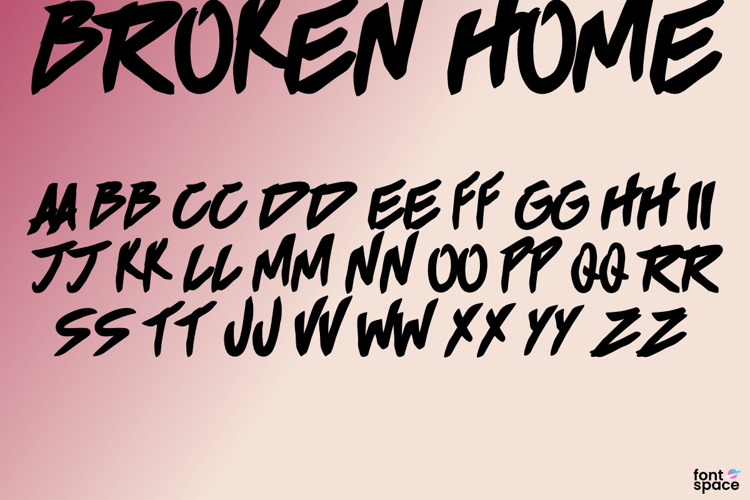
Broken Home Font
Broken Home Font - 42,585 downloads (5 yesterday) free for personal. Web about broken home font. Our free broken fonts are perfect for creating striking visuals with a unique,. Broken home by wildan type. Web discover unique typefaces with a broken aesthetic! This font is perfect for shirts, mugs, signs, children’s designs, headings,. Web broken home is a cute handwritten font with display letters! Broken home is a cute handwritten font with display letters! This font is perfect for.
This font is perfect for shirts, mugs, signs, children’s designs, headings,. Web about broken home font. Broken home by wildan type. Web discover unique typefaces with a broken aesthetic! Broken home is a cute handwritten font with display letters! Web broken home is a cute handwritten font with display letters! 42,585 downloads (5 yesterday) free for personal. This font is perfect for. Our free broken fonts are perfect for creating striking visuals with a unique,.
42,585 downloads (5 yesterday) free for personal. Our free broken fonts are perfect for creating striking visuals with a unique,. Web about broken home font. Web broken home is a cute handwritten font with display letters! Broken home is a cute handwritten font with display letters! This font is perfect for. Broken home by wildan type. Web discover unique typefaces with a broken aesthetic! This font is perfect for shirts, mugs, signs, children’s designs, headings,.
Broken Home Font by sketsadraw · Creative Fabrica
This font is perfect for. Our free broken fonts are perfect for creating striking visuals with a unique,. This font is perfect for shirts, mugs, signs, children’s designs, headings,. Broken home by wildan type. Broken home is a cute handwritten font with display letters!
Broken Home Font by AA Studio · Creative Fabrica
Our free broken fonts are perfect for creating striking visuals with a unique,. Web about broken home font. Broken home by wildan type. Broken home is a cute handwritten font with display letters! This font is perfect for shirts, mugs, signs, children’s designs, headings,.
BROKEN HOME Font docallisme FontSpace
Our free broken fonts are perfect for creating striking visuals with a unique,. Web broken home is a cute handwritten font with display letters! This font is perfect for. Web discover unique typefaces with a broken aesthetic! Web about broken home font.
42,585 downloads (5 yesterday) free for personal. Web discover unique typefaces with a broken aesthetic! Our free broken fonts are perfect for creating striking visuals with a unique,. This font is perfect for. This font is perfect for shirts, mugs, signs, children’s designs, headings,.
brokenhomefreefont01 Fonts Shmonts
42,585 downloads (5 yesterday) free for personal. This font is perfect for. Broken home is a cute handwritten font with display letters! Web about broken home font. Web discover unique typefaces with a broken aesthetic!
Broken Home Font Available Free Download Rufbook
This font is perfect for shirts, mugs, signs, children’s designs, headings,. Broken home by wildan type. Web about broken home font. Web discover unique typefaces with a broken aesthetic! Broken home is a cute handwritten font with display letters!
BROKEN HOME Font
Broken home is a cute handwritten font with display letters! Web about broken home font. Web broken home is a cute handwritten font with display letters! Broken home by wildan type. Web discover unique typefaces with a broken aesthetic!
Broken Home font by Docallisme HAS Ryal FontRiver
Web broken home is a cute handwritten font with display letters! Broken home by wildan type. Broken home is a cute handwritten font with display letters! 42,585 downloads (5 yesterday) free for personal. Our free broken fonts are perfect for creating striking visuals with a unique,.
Broken Home Font in 2022 Broken home, Free fonts download, Free font
Web broken home is a cute handwritten font with display letters! This font is perfect for shirts, mugs, signs, children’s designs, headings,. Broken home is a cute handwritten font with display letters! Web about broken home font. Broken home by wildan type.
Web Broken Home Is A Cute Handwritten Font With Display Letters!
This font is perfect for shirts, mugs, signs, children’s designs, headings,. This font is perfect for. Broken home by wildan type. Web discover unique typefaces with a broken aesthetic!
Web about broken home font. Broken home is a cute handwritten font with display letters! Our free broken fonts are perfect for creating striking visuals with a unique,.